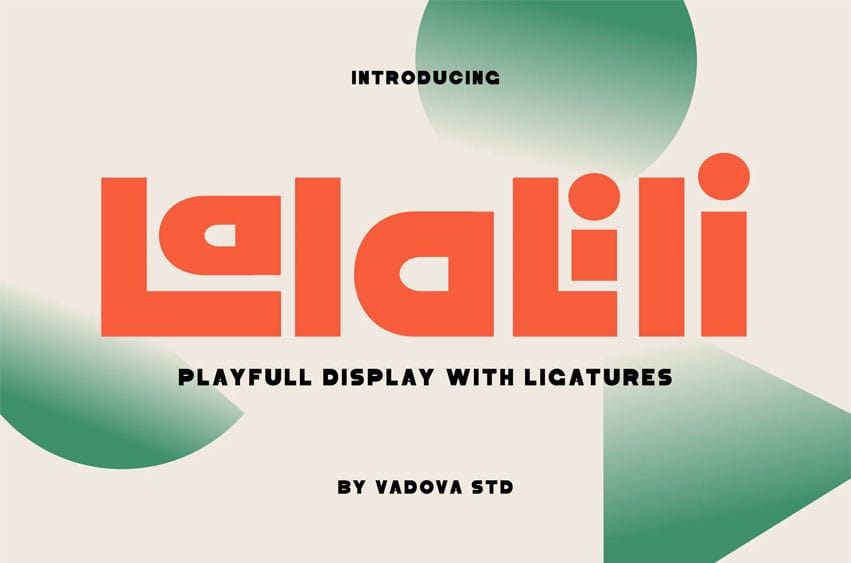
Lalalili Font Playful Bold Sans Serif Font is a bold, bubbly display font with a playful heart and punchy personality. The typeface embraces a youthful, energetic vibe through its thick, rounded characters and strong geometric shapes, radiating fun and friendliness in every letter. Designed to spark joy, Lalalili comes to life with custom ligatures that elevate typographic rhythm and give your words a unique, handcrafted flavor.
The font speaks directly to creative industries looking for high-impact visuals — from children’s book covers to packaging design, Instagram posts, and modern brand storytelling. Its structure is sans-serif, with a heavy, rounded form that ensures legibility while maintaining charm. The strong use of ligatures adds an extra layer of customization that feels bespoke and vibrant.
Lalalili Font is Suitable for branding, packaging, children’s books, Instagram posts, editorial headlines, social media graphics, poster design, logo design, advertising, merchandise, product labeling, signage, web banners, lifestyle content, and creative campaigns.